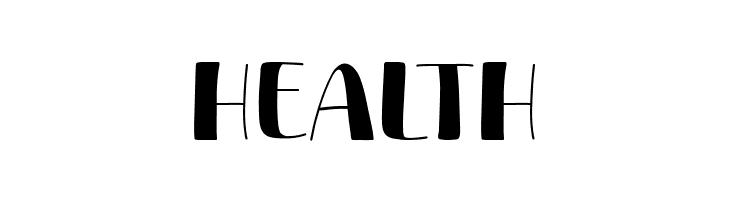
( Rick Mueller - moorstation.org/typoasis/designers/mueller/ )
A dynamic, windswept font with sweeping curves and sharp edges.
( Iconian Fonts - Daniel Zadorozny - www.iconian.com )
A bold, 3D geometric font with strong outlines and a modern look.
( Fonts by Vladimir Nikolic )
A whimsical, monster-themed decorative font with intricate details.
A whimsical, hand-drawn font with irregular, playful strokes.
( Fonts by Omnibus Type )
A bold, condensed typeface perfect for impactful headlines.
A geometric, semi-bold, expanded font with a futuristic and modular design.
A bold, sans-serif font with thick strokes and tight spacing.
( Darrell Flood )
A playful, hand-drawn font with rounded characters and a whimsical style.
A modern, thin, italic sans-serif font with a sleek and elegant style.